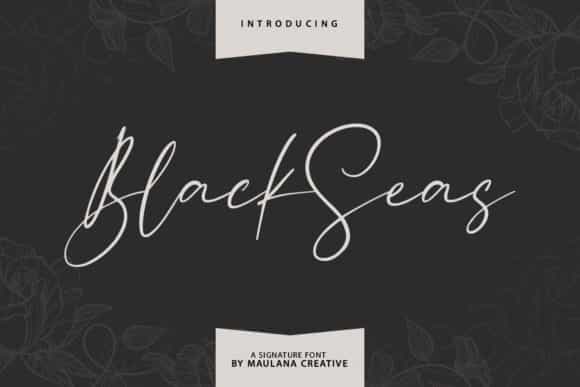
Discover Blackseas Signature Font, part of the Calligraphy Handwritten collection—a versatile and unique font perfect for adding a personal touch to your projects. Download it for free and enjoy crafting designs with style, from invitations to social media posts. This font is available exclusively for personal use, giving you the freedom to create without limits. Unlock your creativity with Blackseas Signature Font today!
Blackses – a new fresh handmade calligraphy font by Blackseas. Highly applicable to greeting cards, branding materials, business cards, quotes, posters and a lot more! This font is ideal for wedding postcards. Or you can make the perfect and distinctive design of your logo, blog, stationery, marketing materials, magazines and so on.